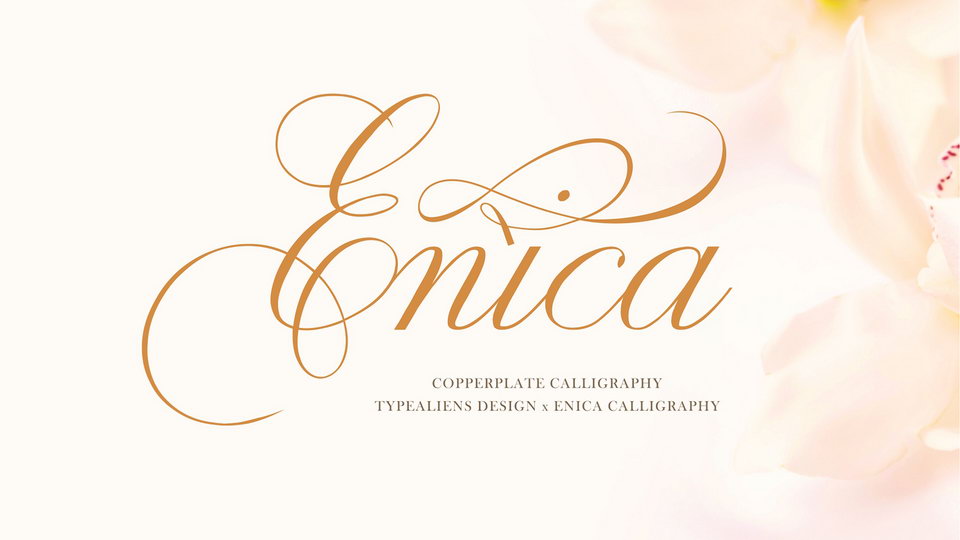
Feb 10, 2025Script & HandwrittenEnica Font Enica is an exquisite handwritten font, masterfully designed to become a true favorite.Enica maintains its classy calligraphic influences while feeling contemporary and fresh. Font DetailsDesigned by: TypealiensWebsiteLicense: Free for personal use Download Enica FontFile size: 33.07 KBCreated: February 16, 2025Updated: February 16, 2025 Download Explore similar fonts Jasmine Romantic Wedding Font Tender Natural Font Ulya Rahmatun Font Maulieda Remighe Font Daylight Beauty Font Honey Bear Font # Calligraphy# Copperplate# Cursive# Decorative# Elegant# Feminine# Handwriting# Italic# Wedding More fonts by TypealiensMosky FontRose Velt FontAlevantre FontHanahelia FontAcuentre FontTreva del Mar FontMostfear FontTrifasciata Font